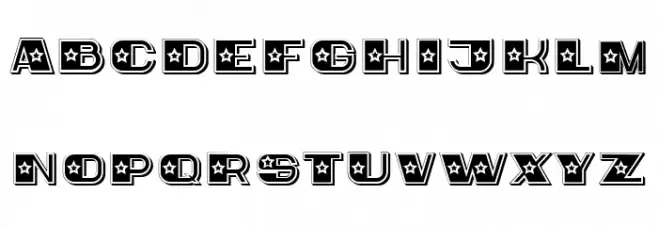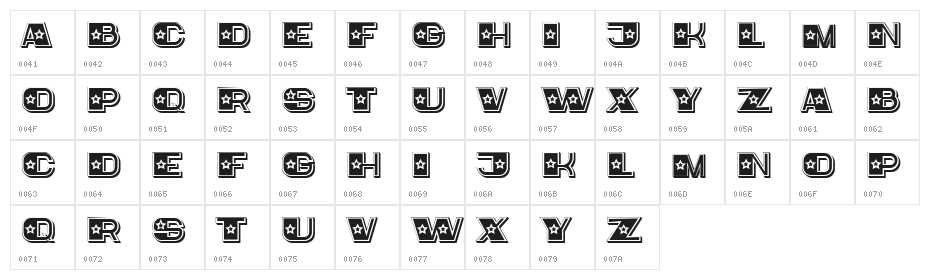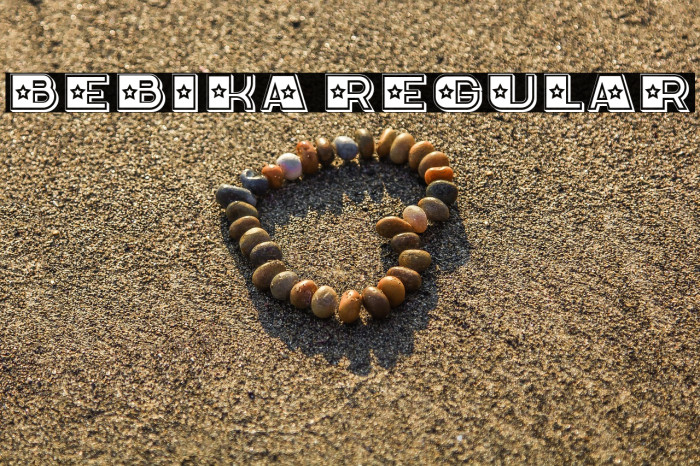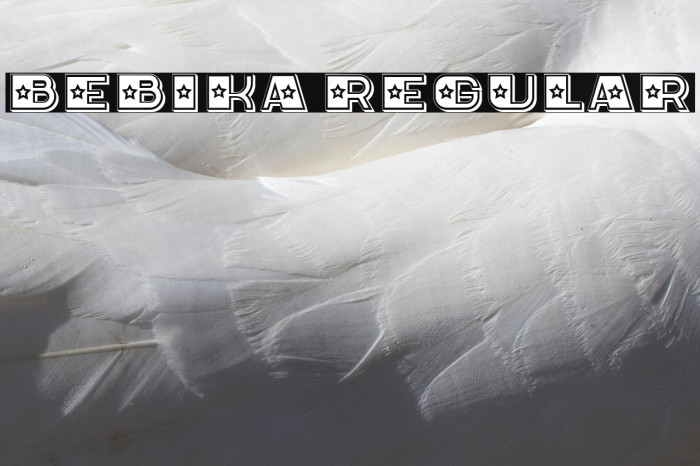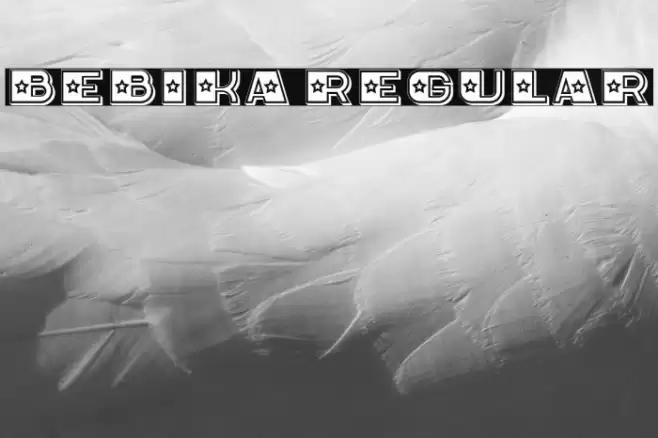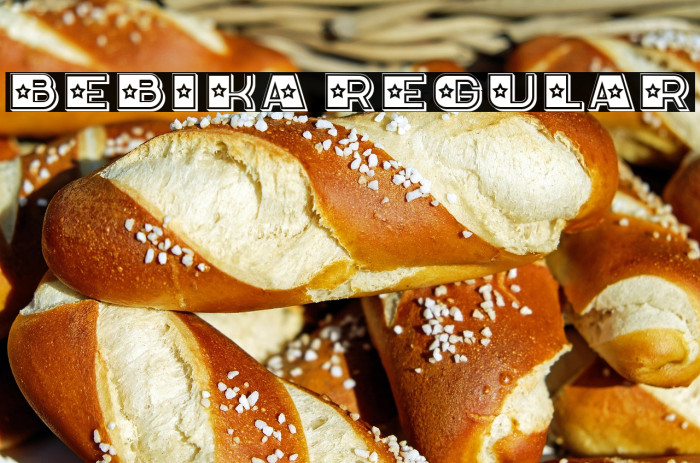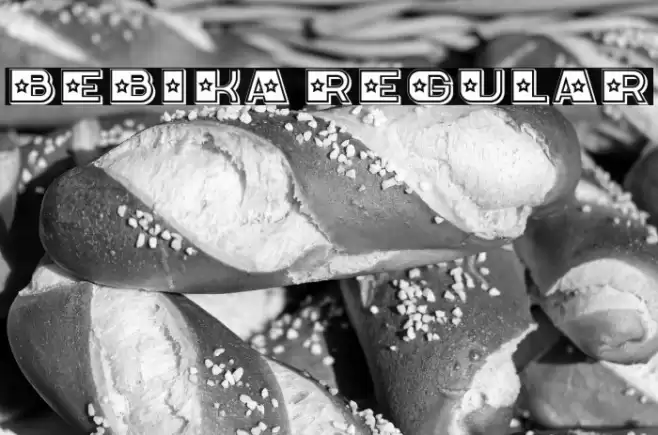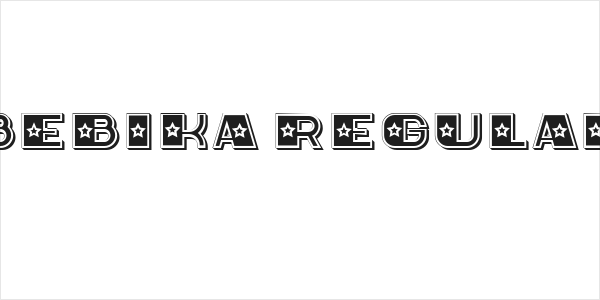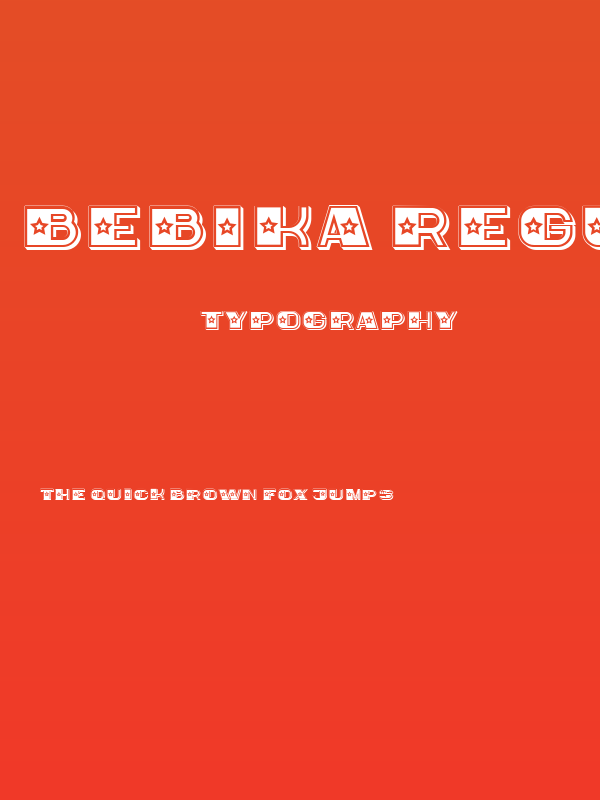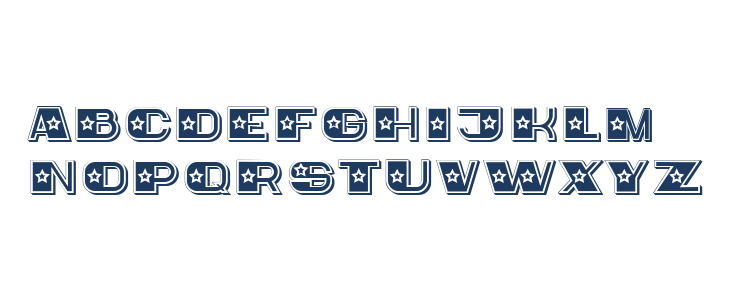
Bebika Regular Font
Bebika Regular Description
This font features a bold and decorative style with a unique star motif embedded within each character. The letters are outlined with a thick black border, giving them a strong presence. The interior of each character is filled with a pattern of stars, adding a playful and eye-catching element. The overall design is symmetrical and balanced, making it suitable for attention-grabbing headlines or titles. The font maintains a consistent width across all characters, ensuring uniformity in text alignment.
| Proposed Projects | Ideal for posters, event flyers, children's book covers, and any project requiring a fun and bold display font. |